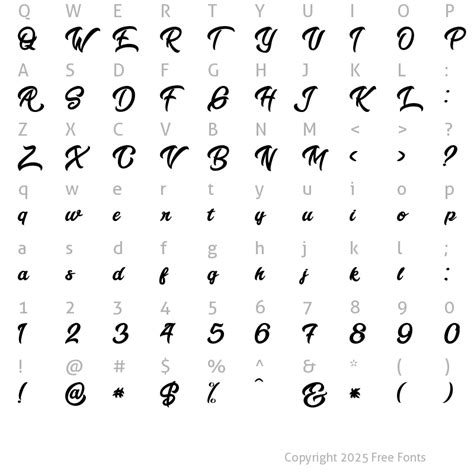
Hey guys! Ever been on the hunt for a cool, versatile font that can give your projects that extra oomph ? Well, if you’re anything like me, you know how crucial it is to find the perfect typeface. Today, we’re diving deep into the world of the IMARSHFIELD typeface regular , and the best part? You can snag it for free ! This guide is your one-stop shop for everything you need to know about this fantastic font, from its unique features to where you can download it safely and use it in your creative endeavors. We’ll explore why IMARSHFIELD is a great choice, how to download it without any hassle, and even some cool ways you can use it to make your designs pop. So, buckle up, because we’re about to embark on a font-tastic journey!
Unveiling the IMARSHFIELD Typeface: What Makes It Special?
So, what’s all the fuss about the IMARSHFIELD typeface regular ? Well, first off, it’s a display font. This means it’s designed to grab attention and make a statement. Think of it as the bold, stylish friend in your font collection. It’s got a unique personality, with its clean lines, modern aesthetic, and a touch of vintage flair. The IMARSHFIELD font is perfect for a wide range of projects, from creating eye-catching headlines to designing logos, posters, and even social media graphics. One of the things that really sets this font apart is its versatility. It’s legible enough to be used in smaller sizes, making it ideal for body text in some cases, while still maintaining its impact when used in larger displays. The design of each character is carefully crafted, ensuring a cohesive and visually appealing experience. Whether you’re a graphic designer, a blogger, or just someone who loves playing around with fonts, the IMARSHFIELD typeface regular will quickly become a favorite in your toolkit. You can use it in a variety of styles. If you’re creating a branding project, and you want to use it for your logo, that is awesome! If you are creating social media graphics, you can use IMARSHFIELD for eye-catching headlines. It’s also suitable for designing posters and other similar projects. The IMARSHFIELD typeface is a great choice because of the font’s adaptability and creative potential, which gives you so much room for different projects. The IMARSHFIELD typeface regular has a modern design with a unique aesthetic, providing a professional look with an artistic edge, allowing you to create different designs.
Key Features and Characteristics
Let’s break down some of the key features that make the IMARSHFIELD typeface regular so appealing. Firstly, the font boasts a clean, modern aesthetic. This means it’s not cluttered or overly stylized, making it easy to read and pleasing to the eye. It’s a display font, so it’s designed to make a statement. The font’s design is very legible at all sizes, ensuring that your message is clear and easy to understand. It has a high level of versatility, perfect for various projects. You can use it for headlines, logos, posters, social media graphics, and more. This is what makes it a must-have for any designer. The font’s character set is designed for a professional look with an artistic edge. The letters are carefully crafted and balanced. It’s a free font, so you can download it and use it for commercial and personal projects without any hassle. This font gives you a lot of flexibility and saves you money. The IMARSHFIELD typeface regular is a reliable choice for any creative project, whether you’re working on something professional or just for fun. It’s not just a font, it’s a tool that can help you bring your creative visions to life. It’s designed to be adaptable and easy to read, giving your designs a polished look. Because it is free, it makes it easier to use in any of your projects. You will find that it is a great choice and a good investment, even if it is free.